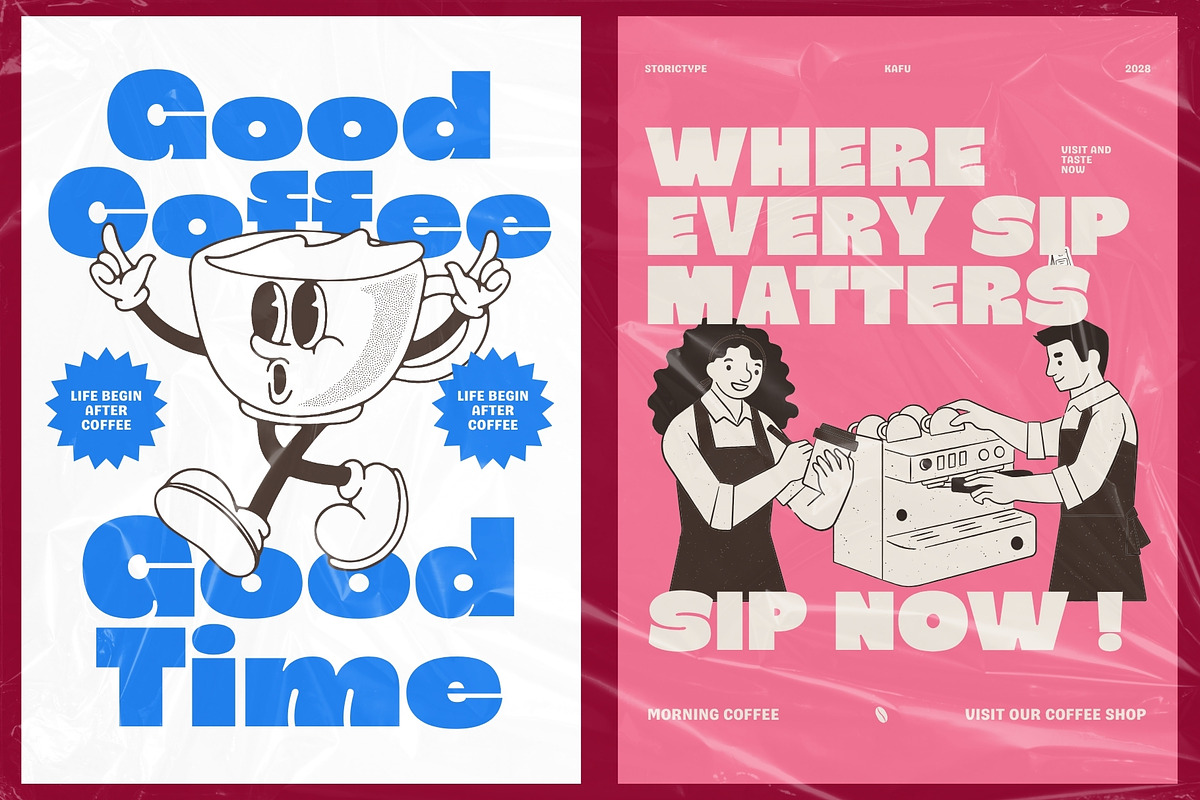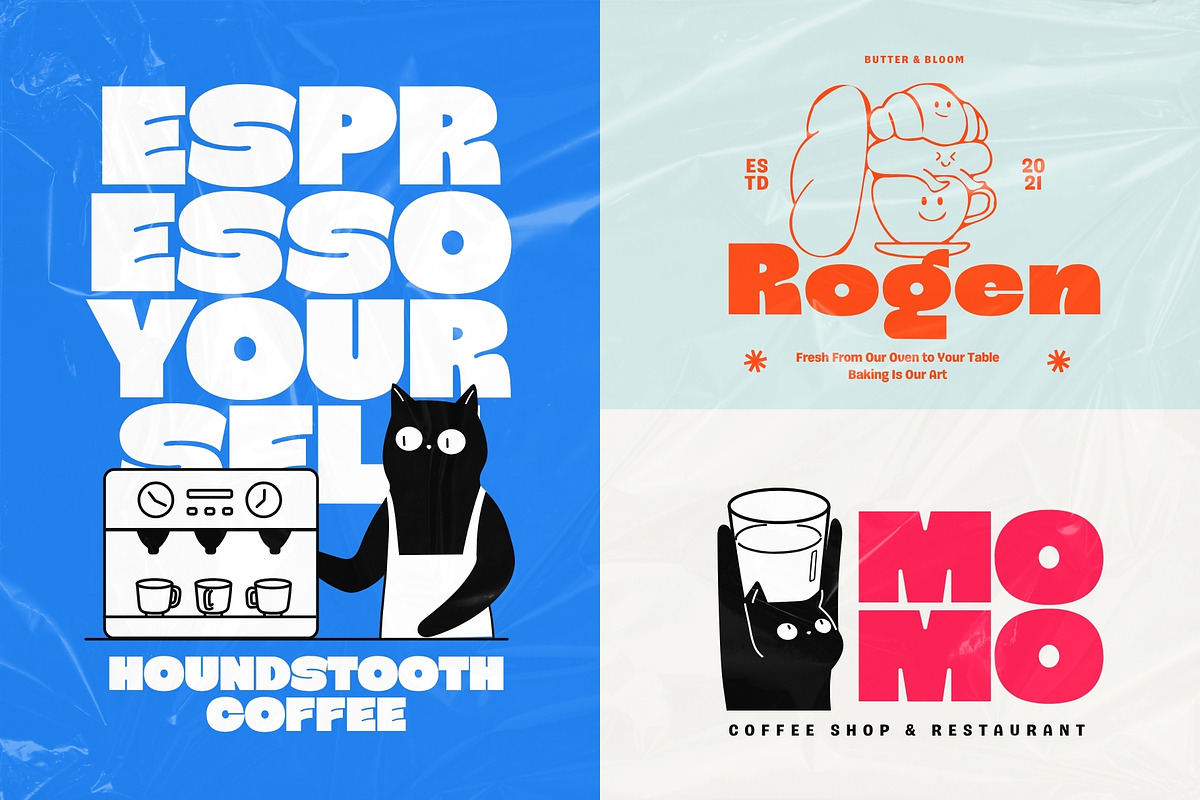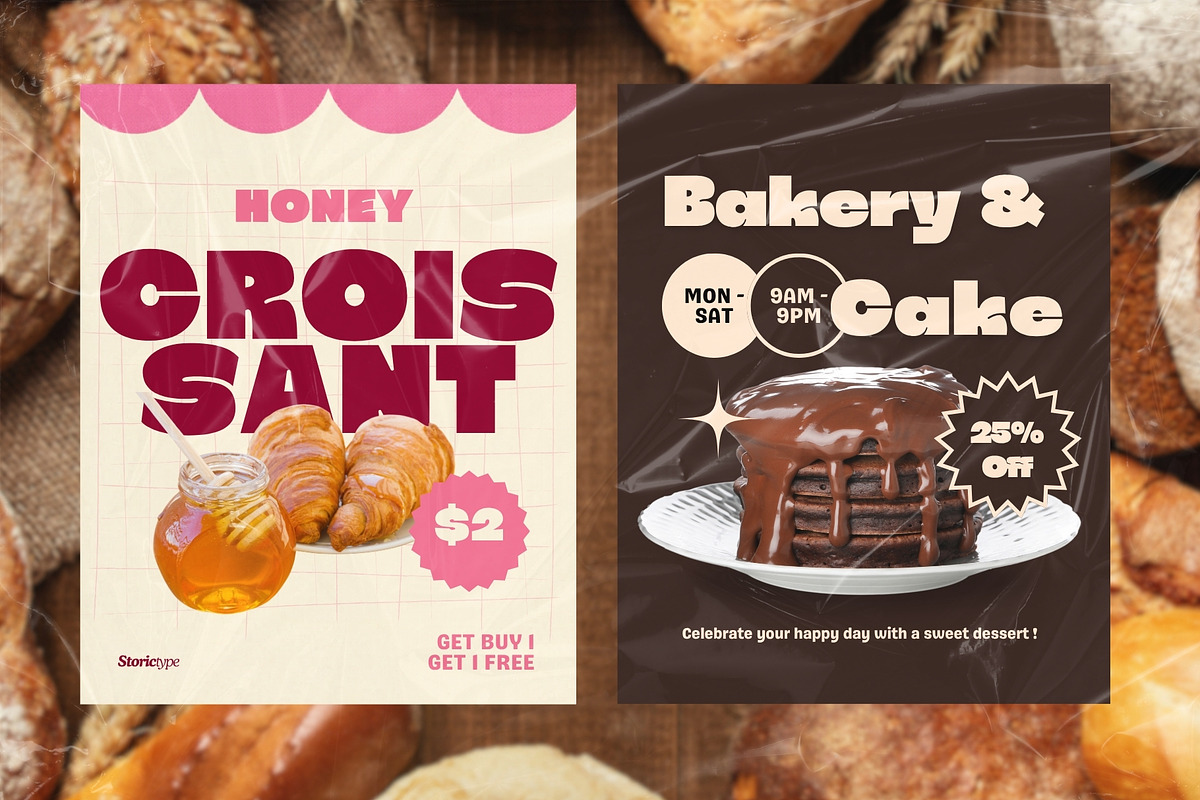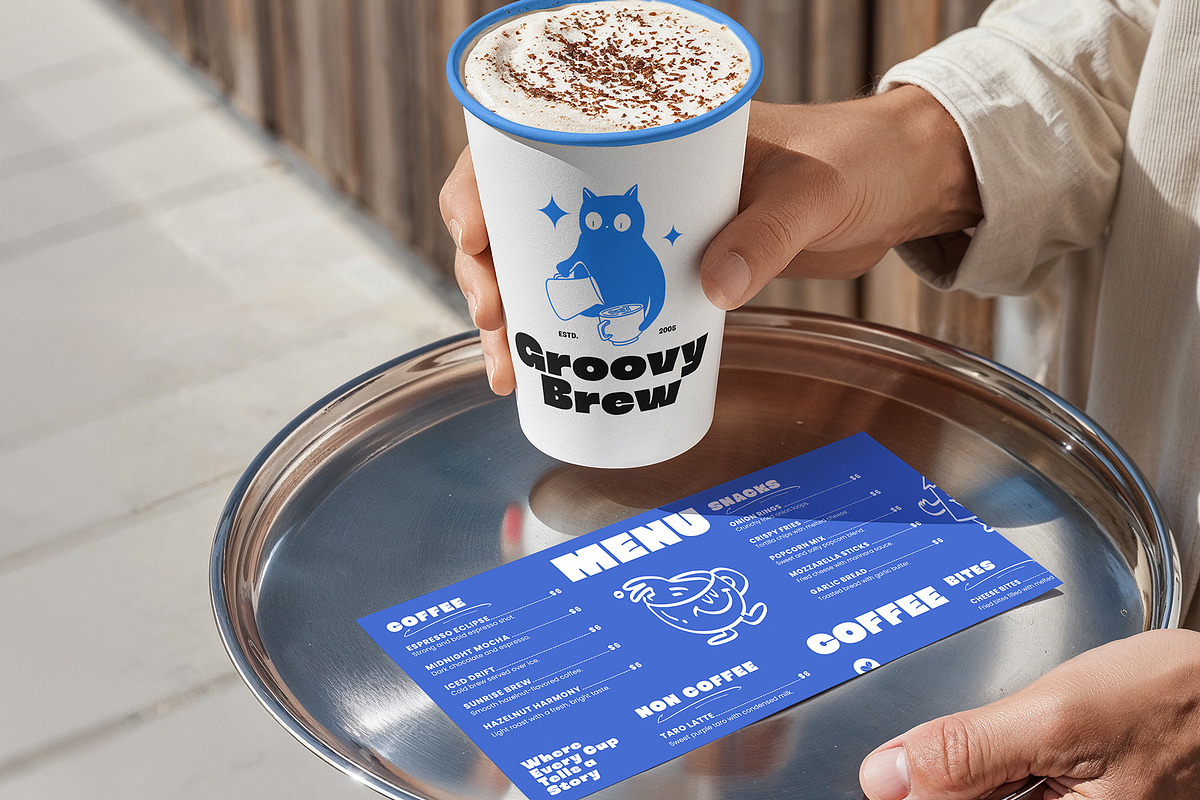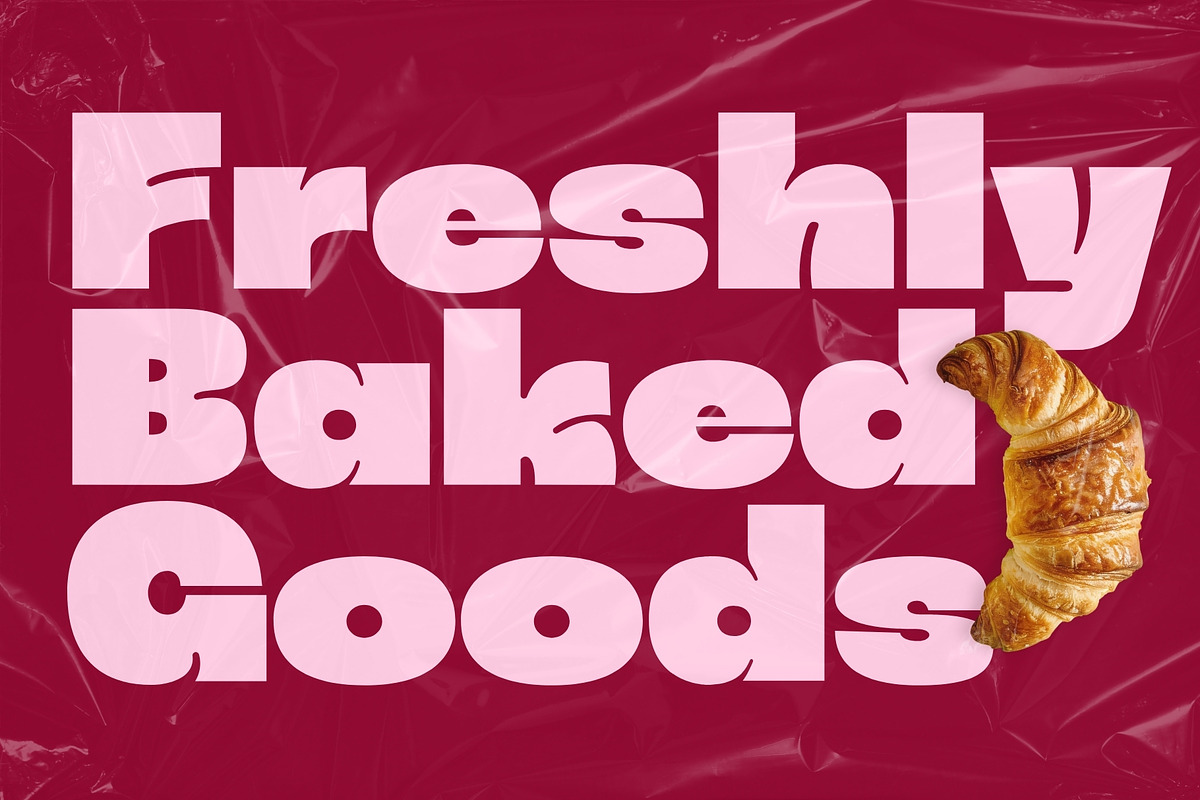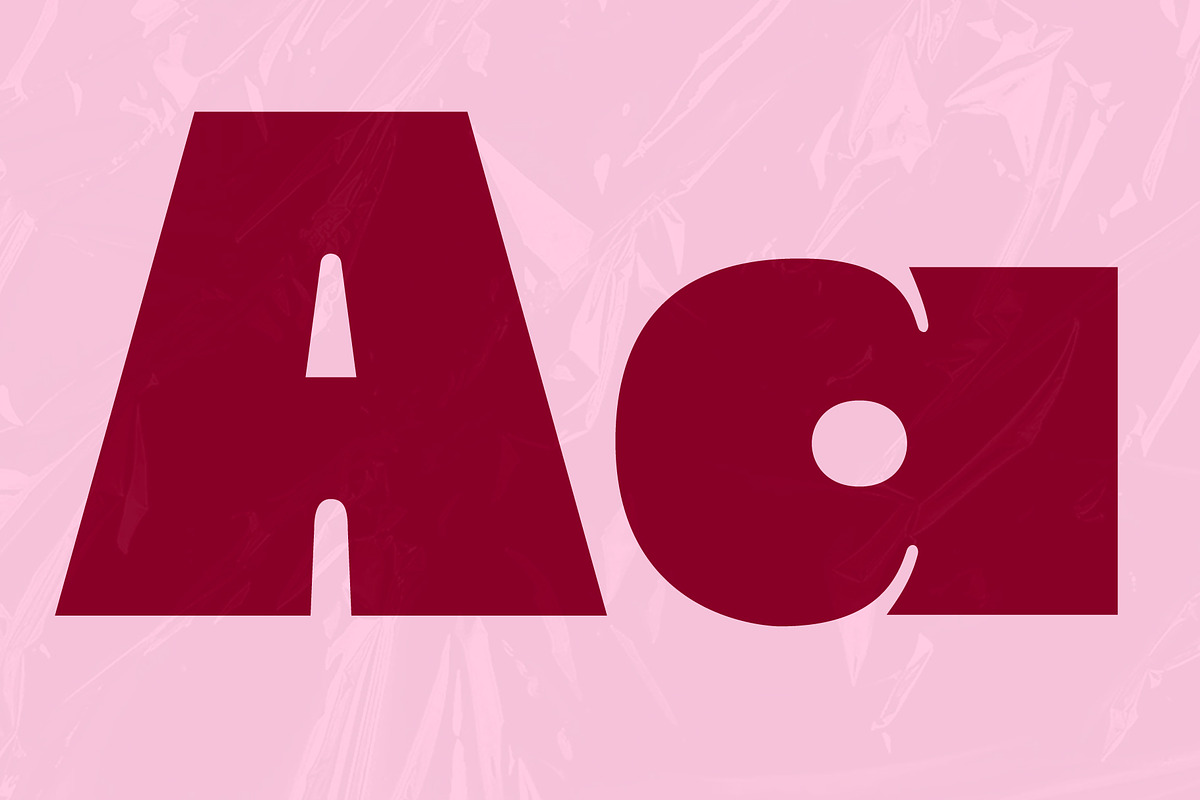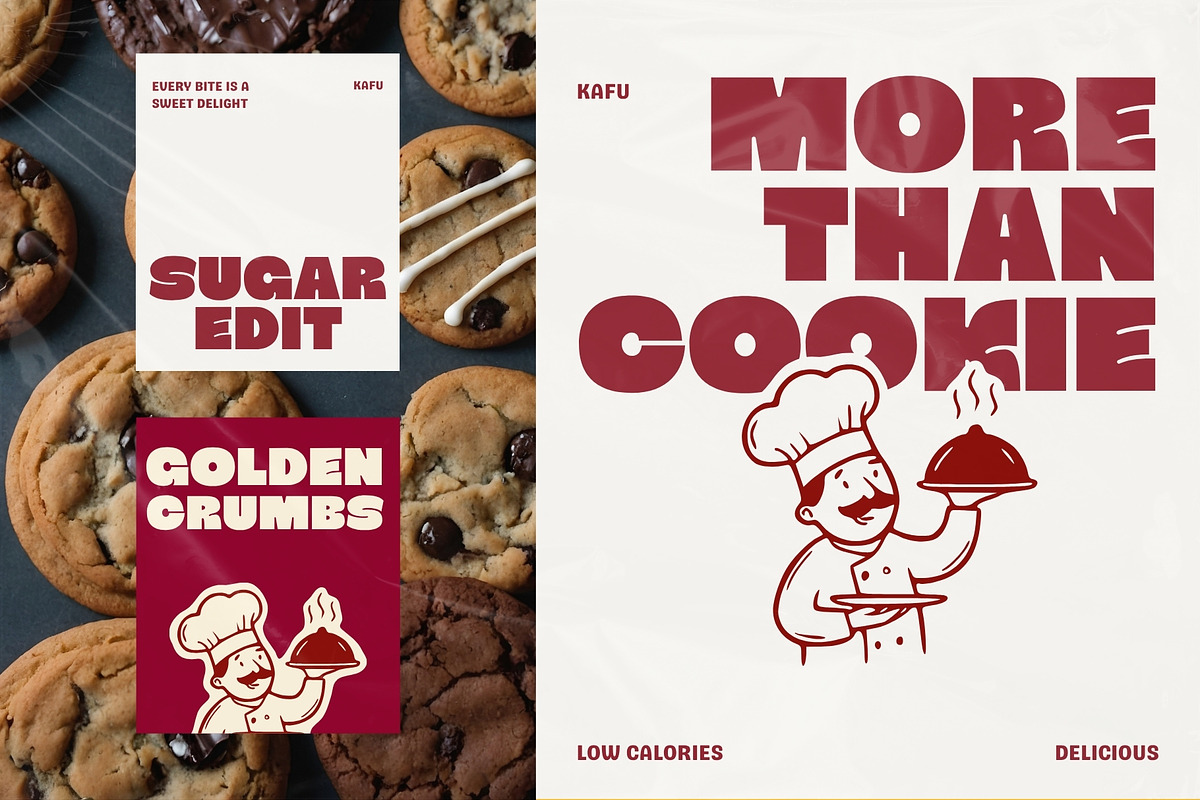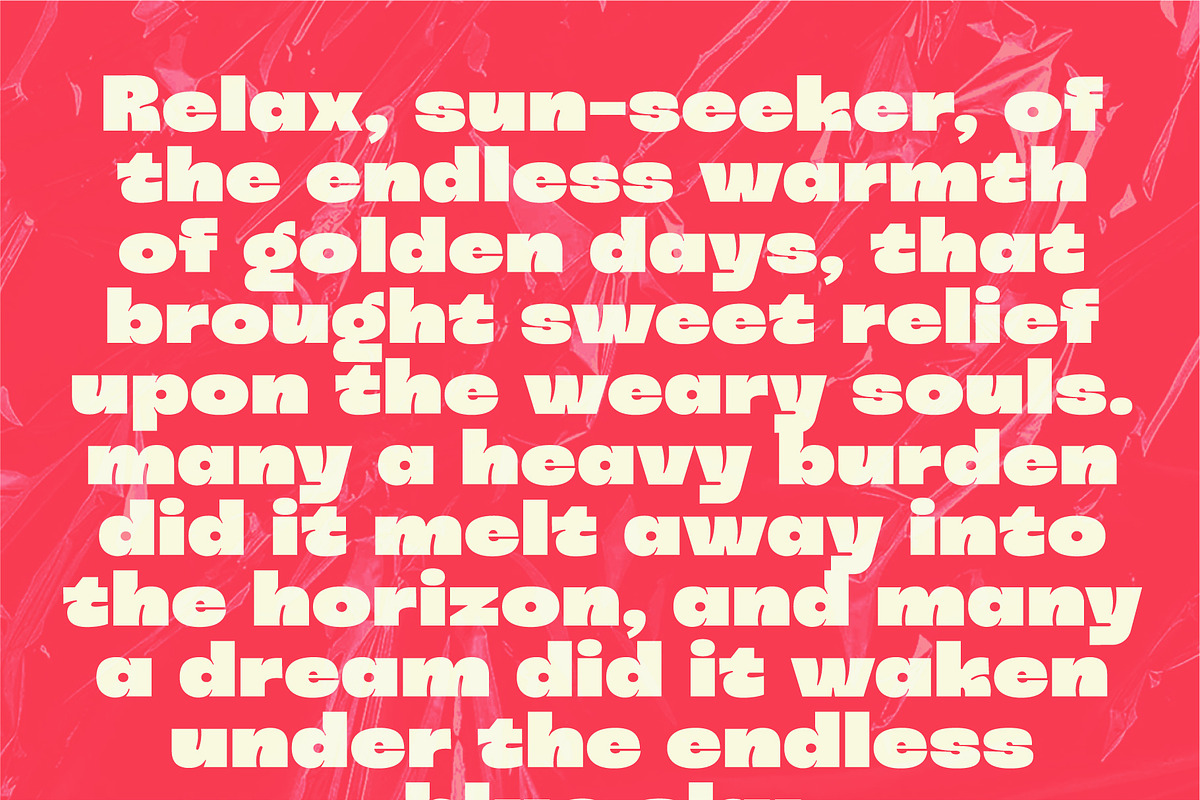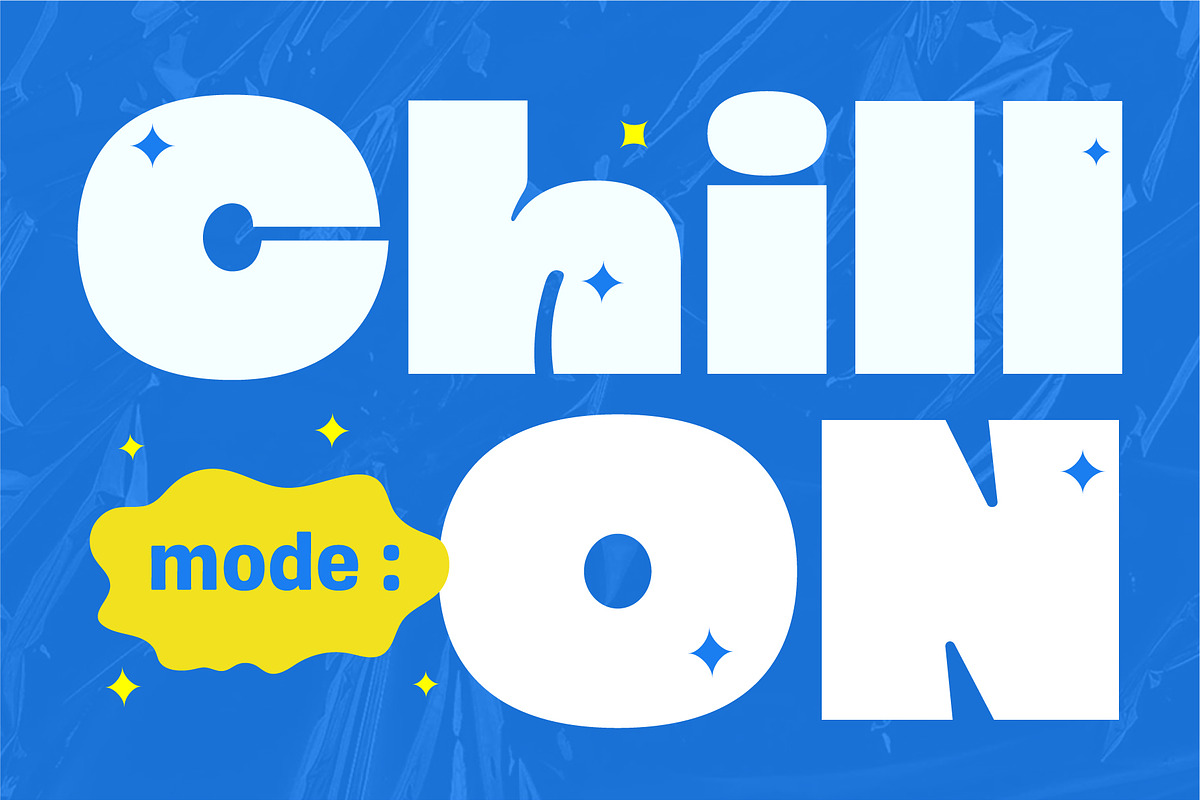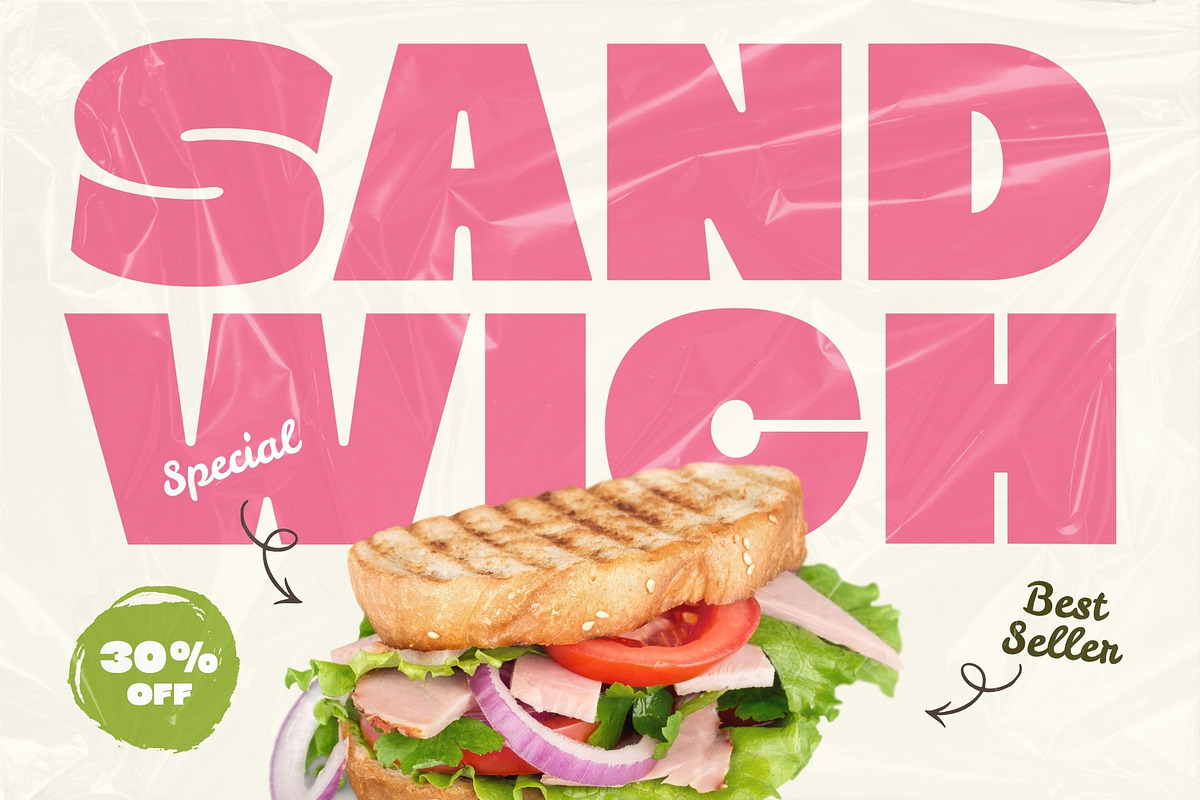
Kafu - Heavy Bold Playful Font
Kafu is a Heavy bold, high-contrast, and modern display font meticulously crafted to make a statement. Inspired by contemporary architectural lines and geometric precision, Kafu brings a sophisticated edge to any creative project. Whether you are designing high-fashion branding, editorial layouts, modern poster design, or captivating social media graphics, Kafu offers the perfect blend of elegance and impact
✨ Features :
Numerals
Punctuations (OpenType Standard)
Accents (Multilingual Characters)
Ligatures and Alternative Style Stylistic Set
🎨 Perfect For:
Bakery / Pasrty branding
Coffee Shop Branding
Café menus, apparel, and signage